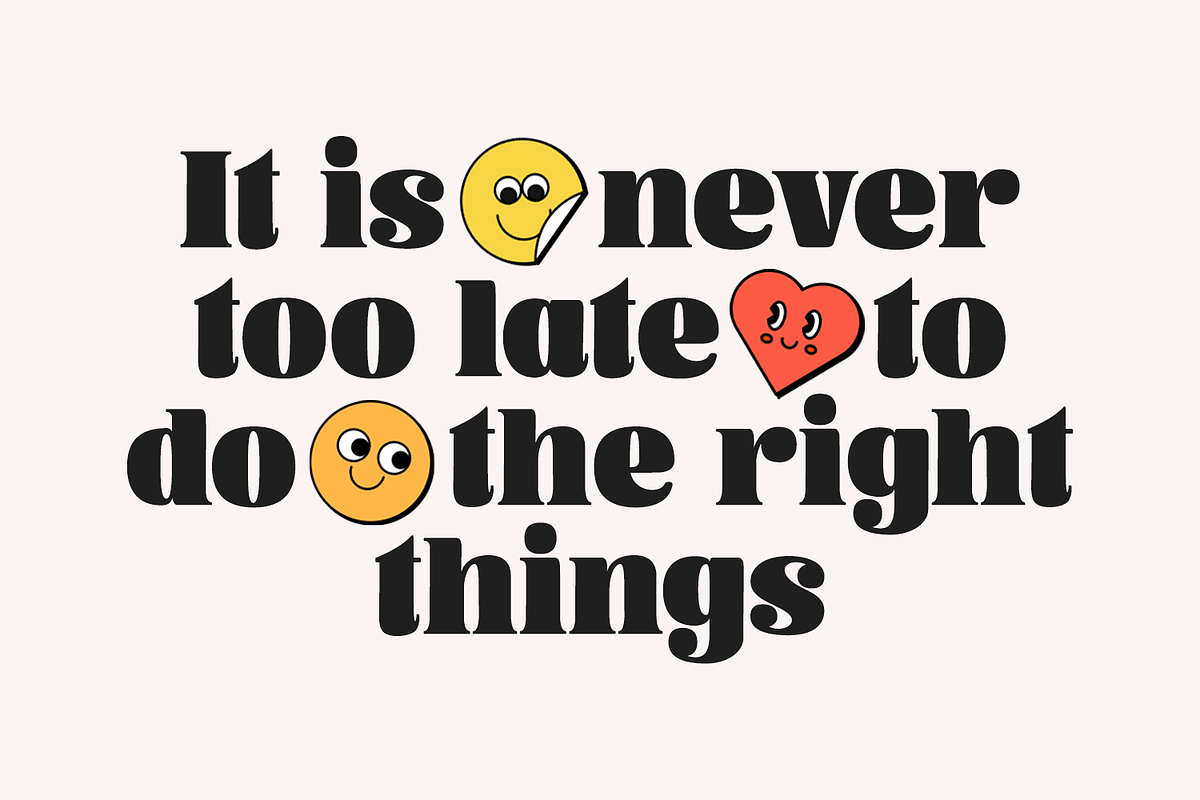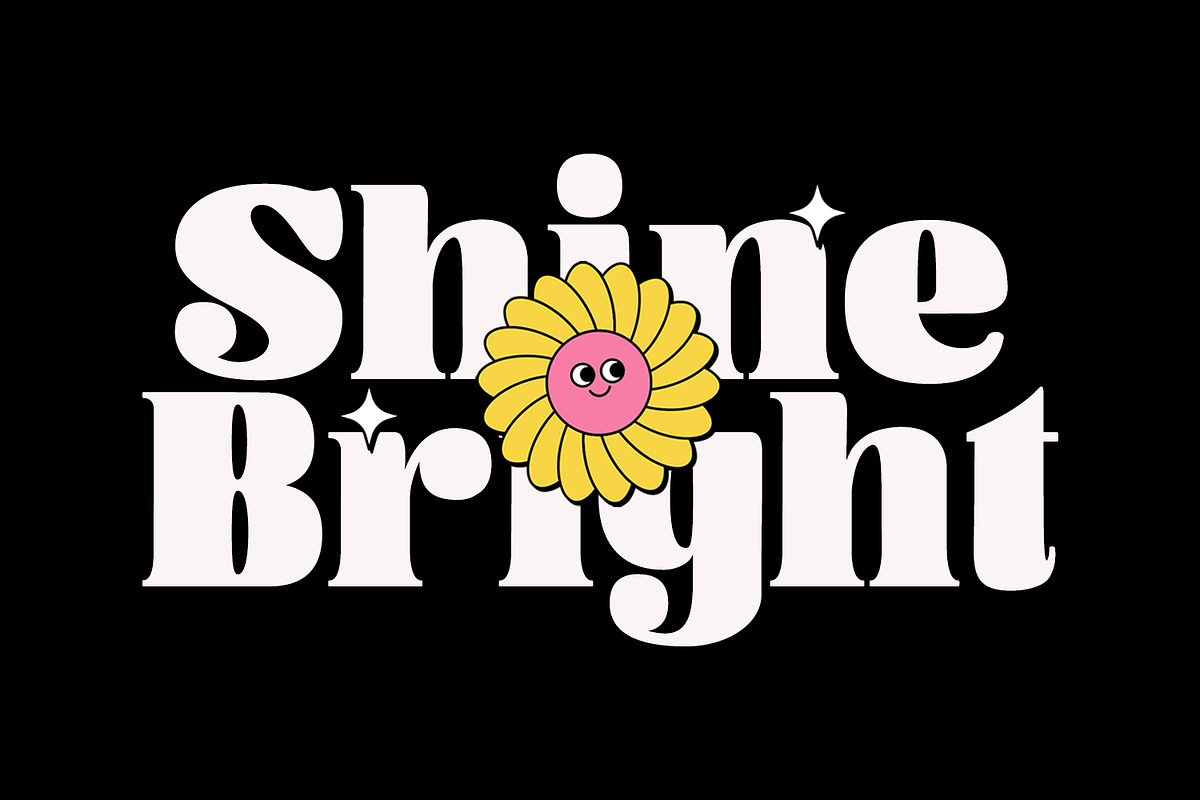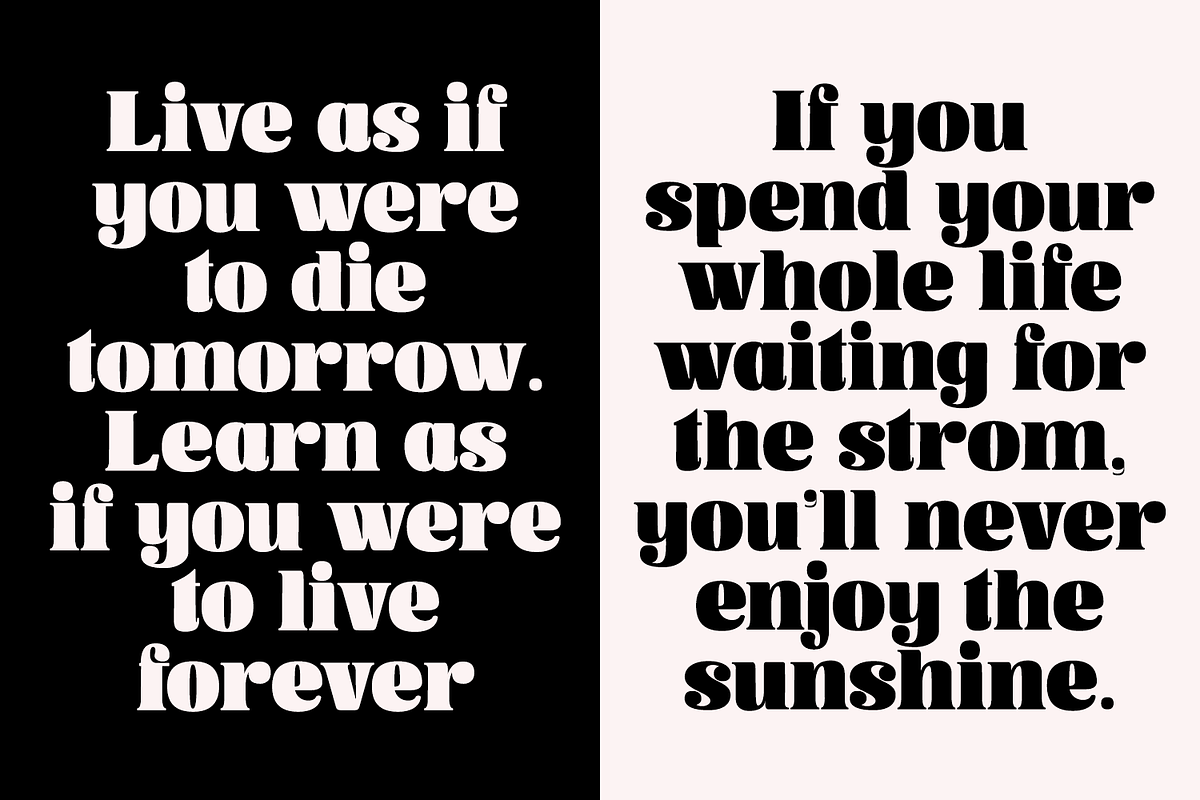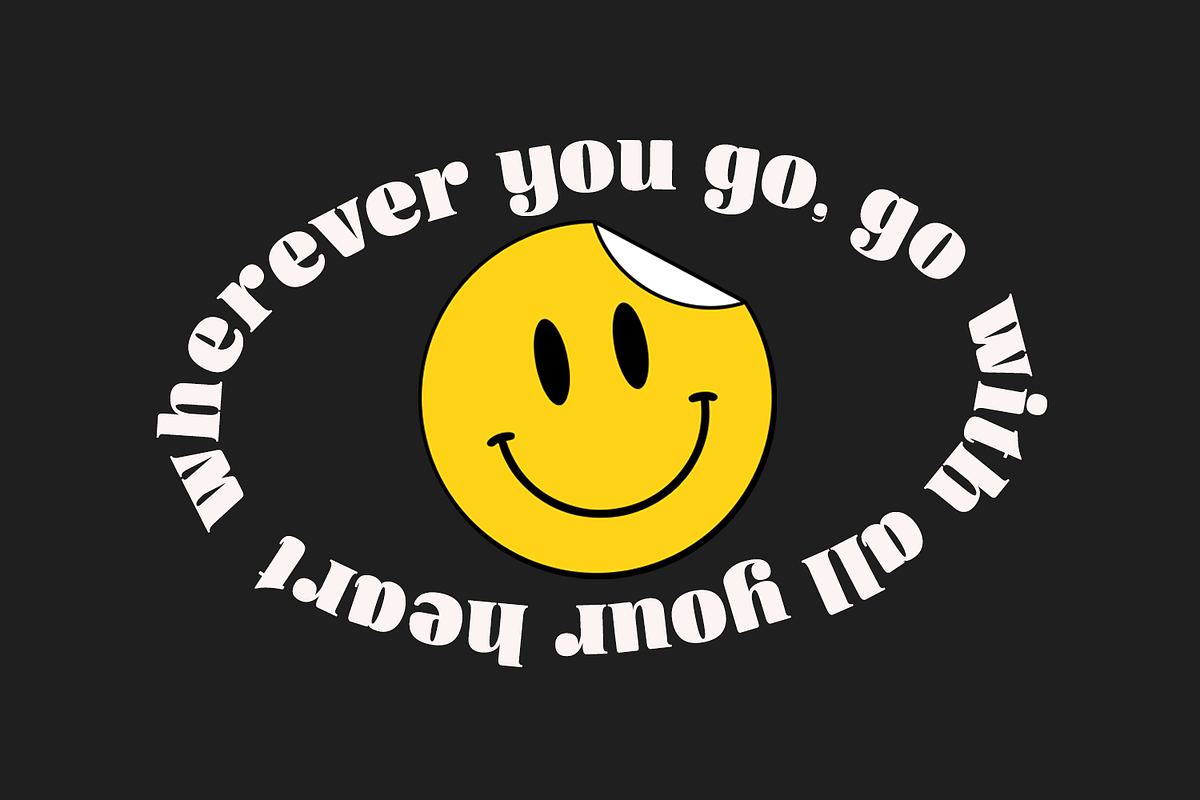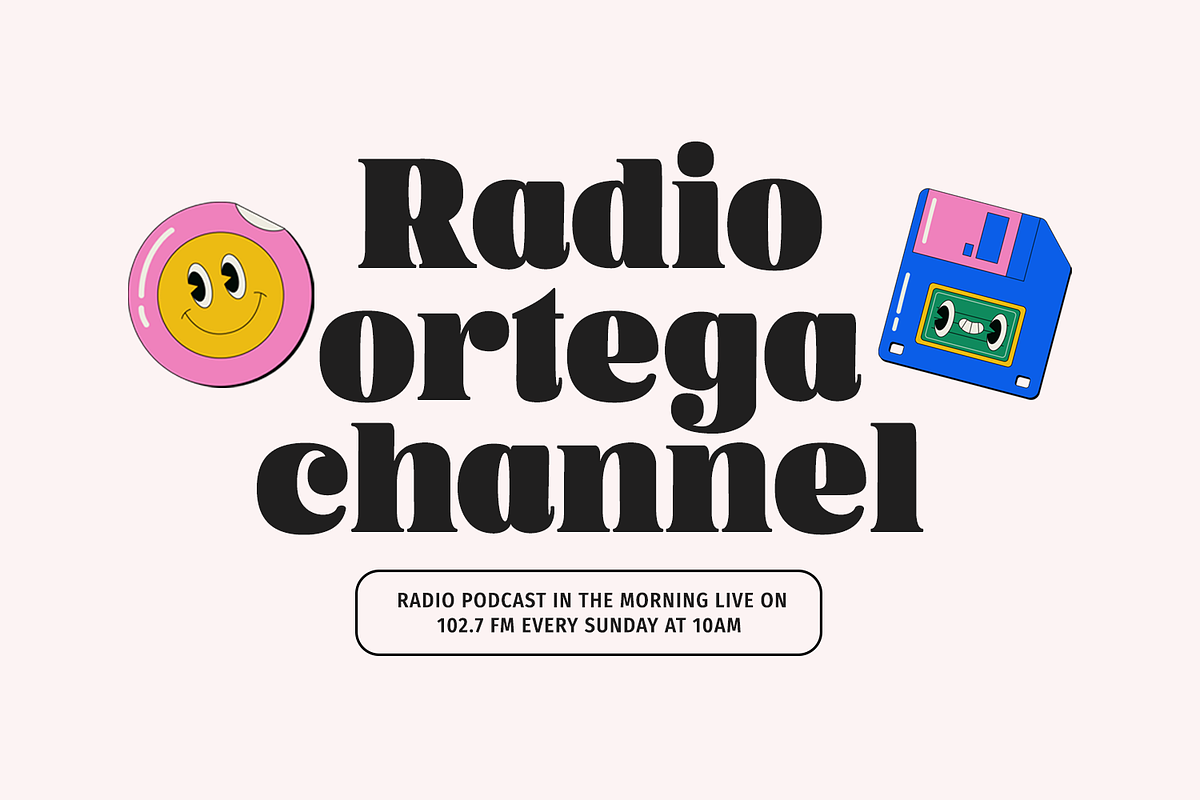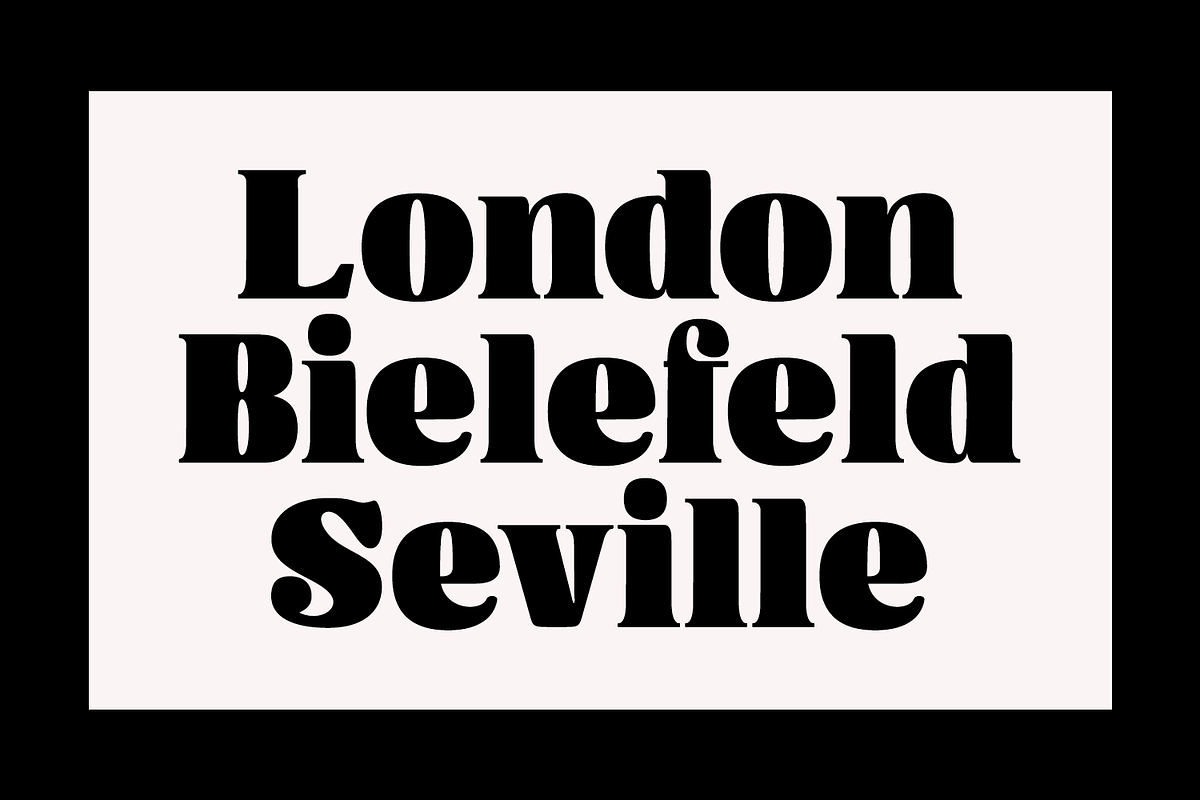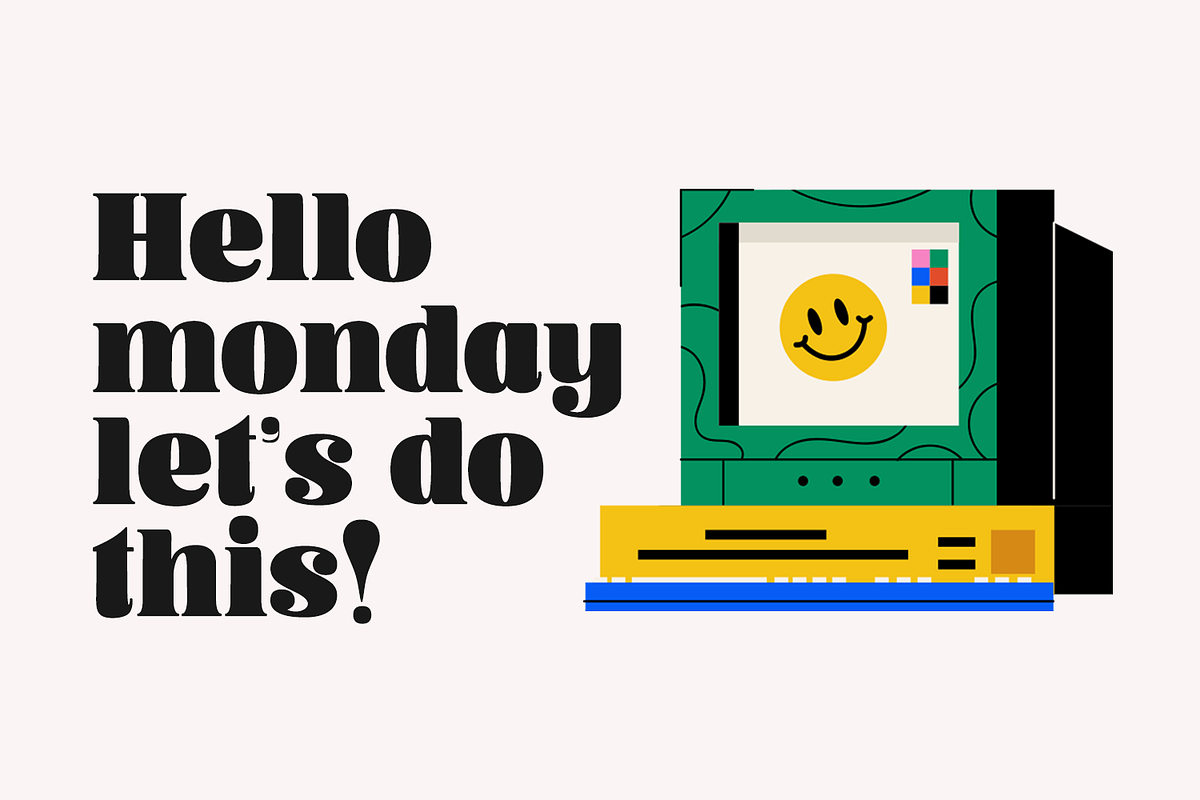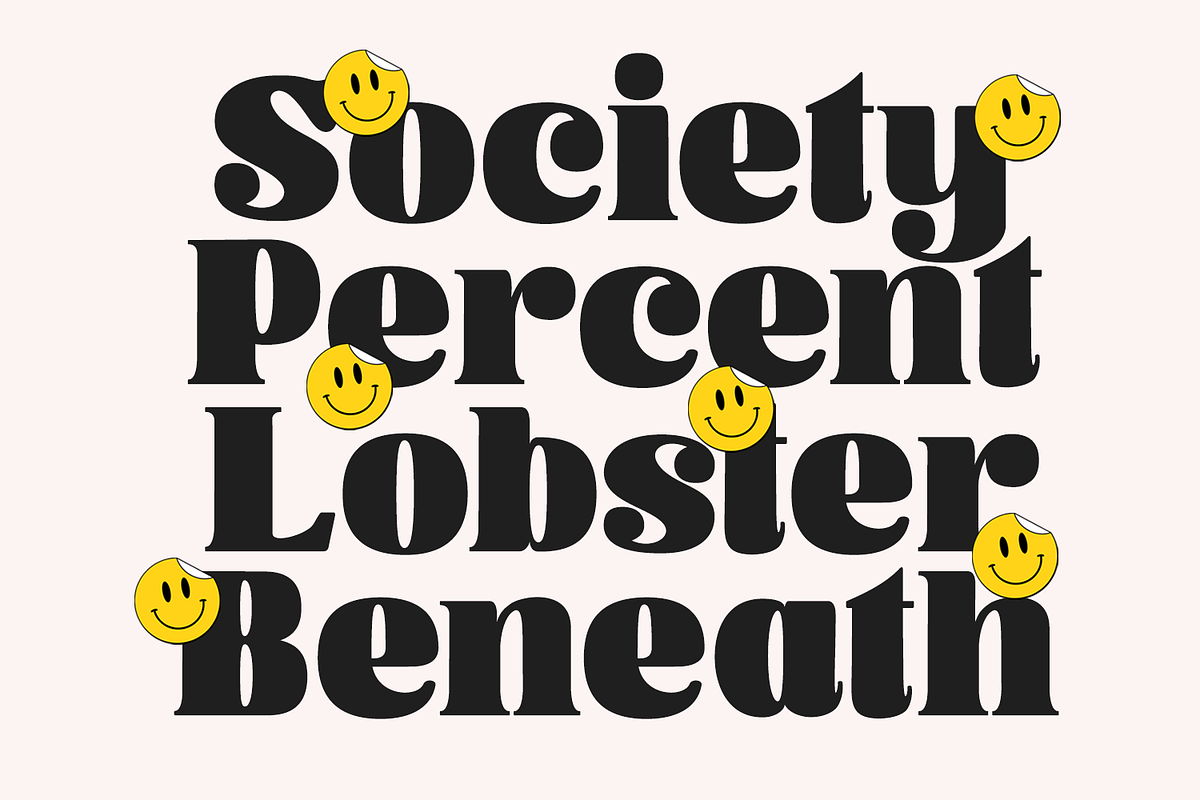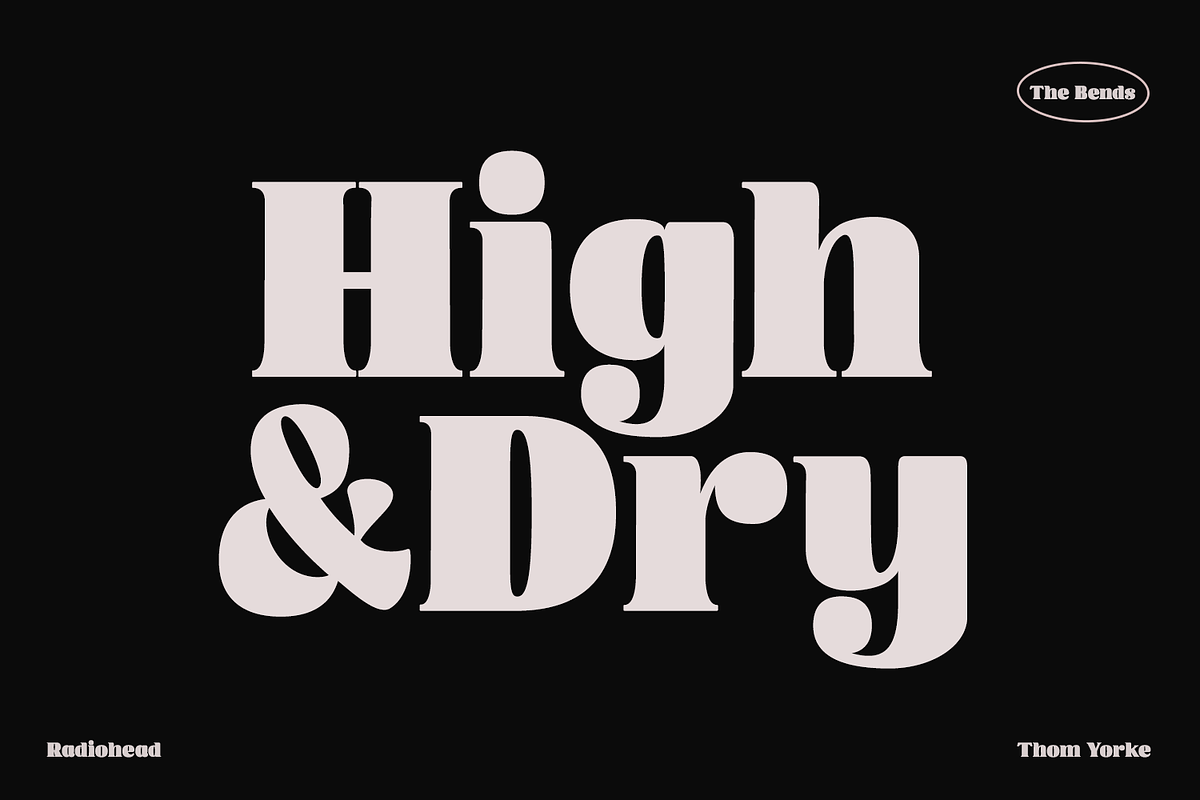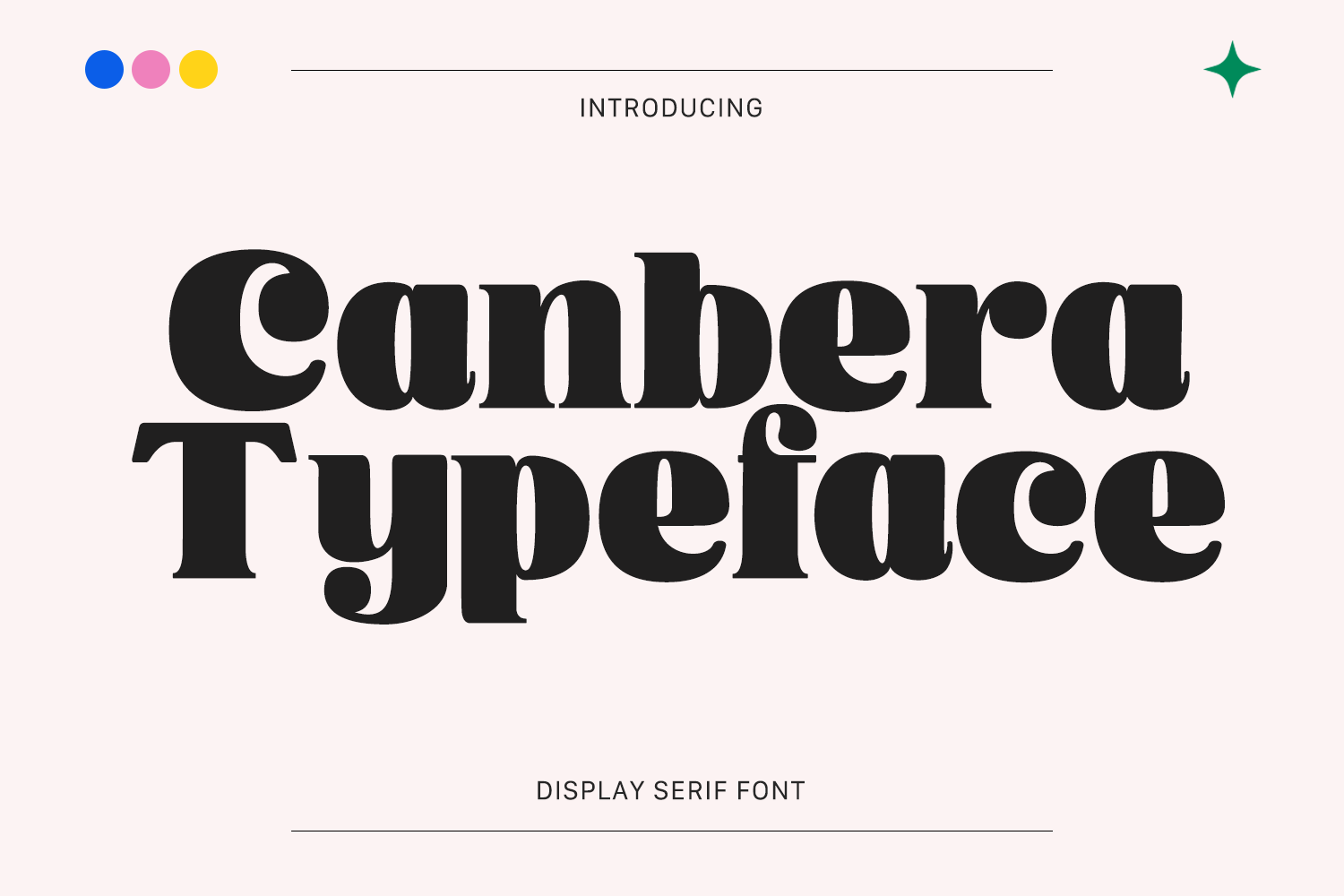
Canbera - Display Typeface
Canbera is an old style serif font, its funky, round, hight-contrast and bold shape with a retro touch is perfect for displayed, head text, logotype and many more.